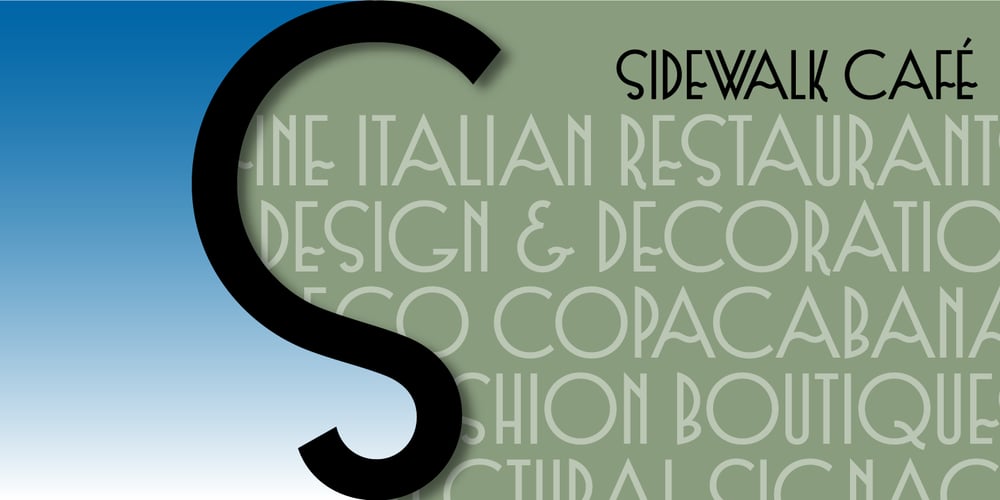
Sidewalk Cafe BF Font Family was designed by John Bomparte and published by Bomparte’s Fonts. Sidewalk Cafe BF contains 1 styles and family package options. Sidewalk Cafe will serve up a look from your Font Menu that’s delectably deco. Though developed from a few hand-lettered words found on a 1930s poster, it retains a contemporary flavor. The shaded version is designed to be layered over Sidewalk Cafe Underlay, to create contrasting color possibilities, as both share the same kerning values. Supports Western and Central European Latin languages, in addition to Baltic, Celtic, Esperanto, Romanian and Turkish.